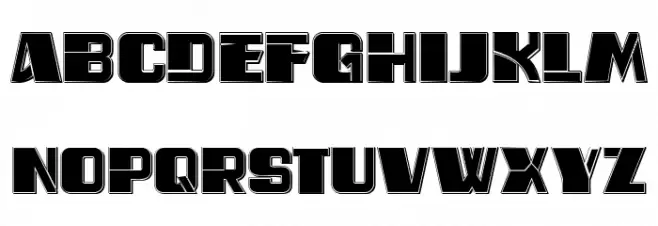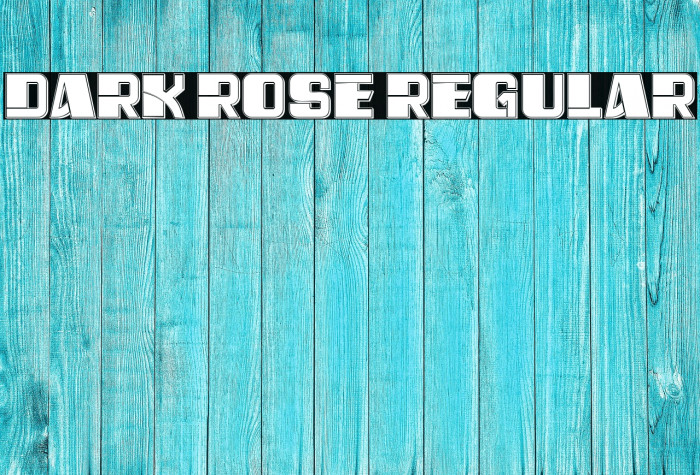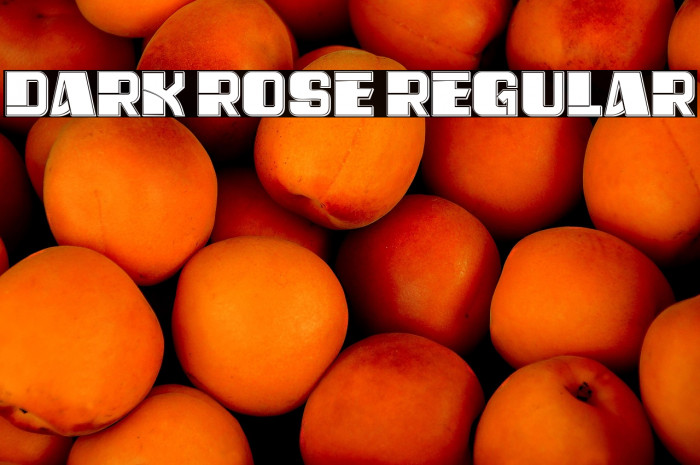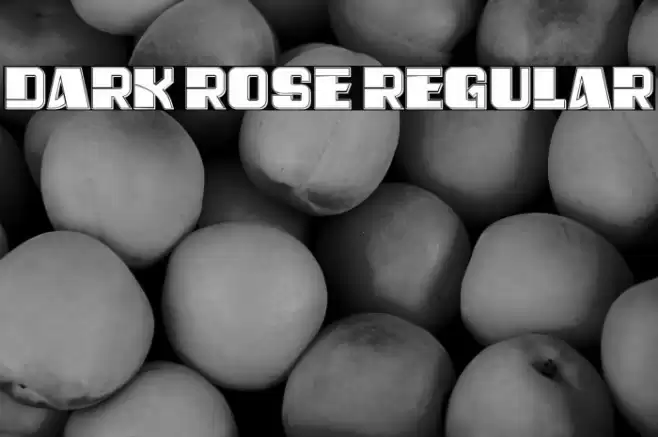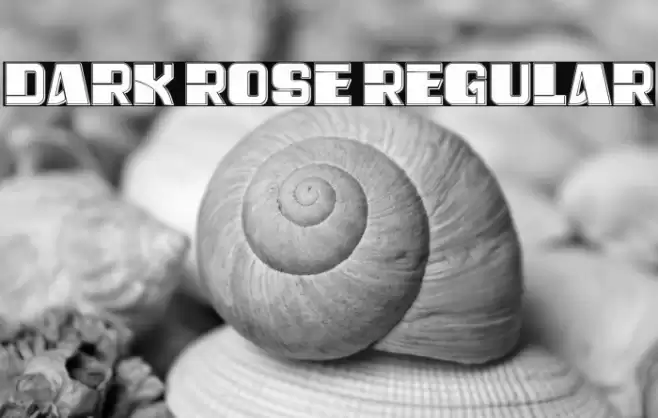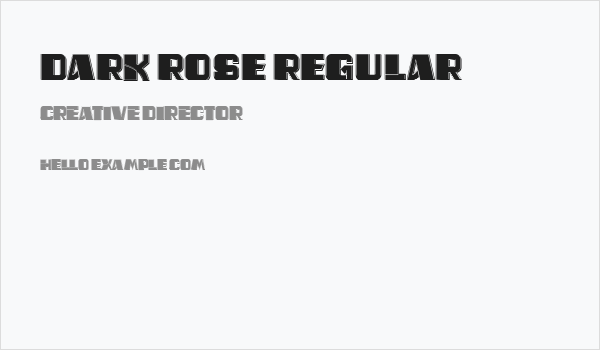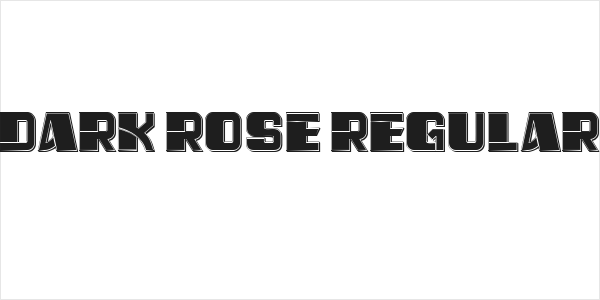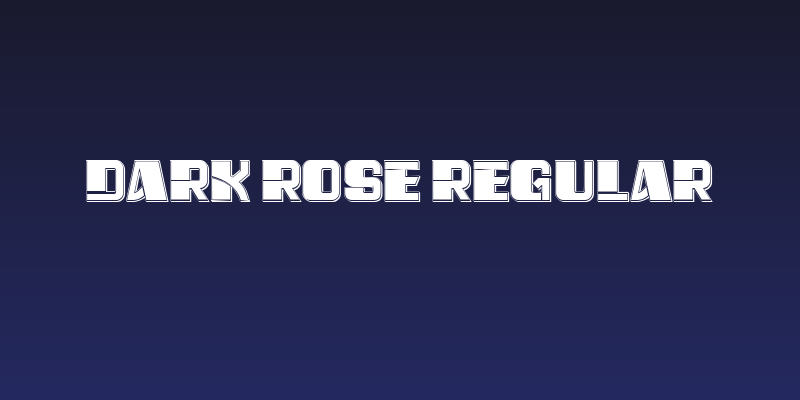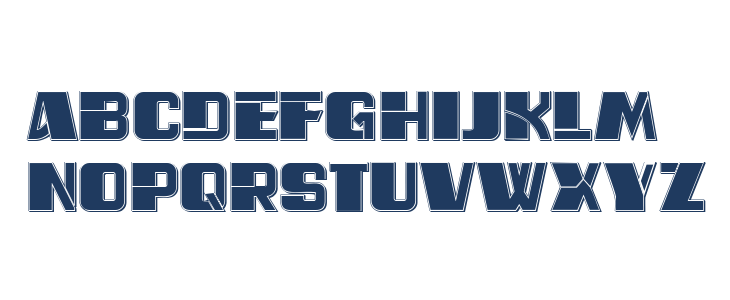
Dark Rose Regular Font
Dark Rose Regular Description
This font features a bold, geometric style with a distinct three-dimensional effect. The letters are blocky and robust, with a shadow-like element that adds depth and dimension. The design is modern and eye-catching, making it suitable for attention-grabbing headlines or titles. Each character is crafted with precision, ensuring a consistent and cohesive look across the alphabet. The font's unique style is both contemporary and versatile, allowing it to be used in a variety of design contexts.
| Proposed Projects | Ideal for posters, logos, and headlines that require a modern and impactful look. |